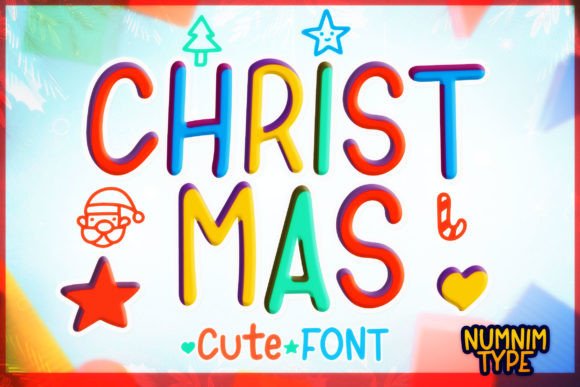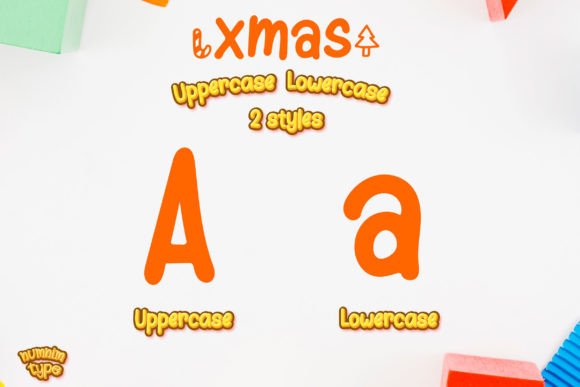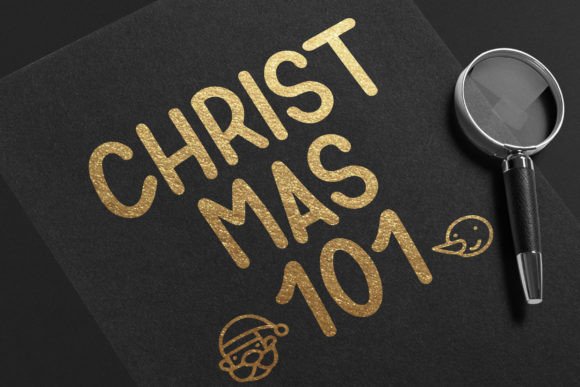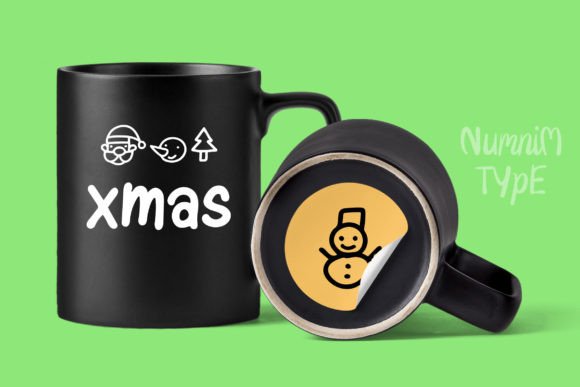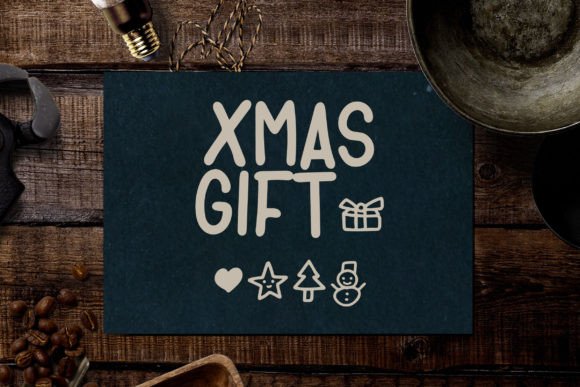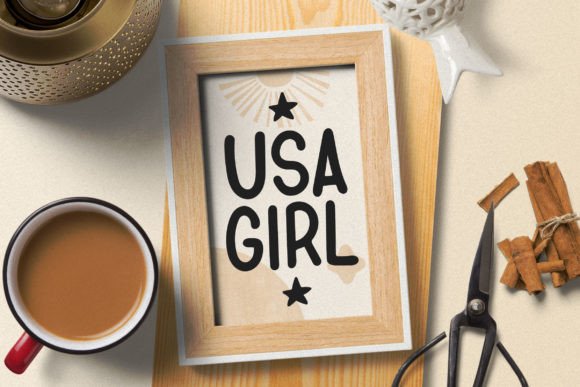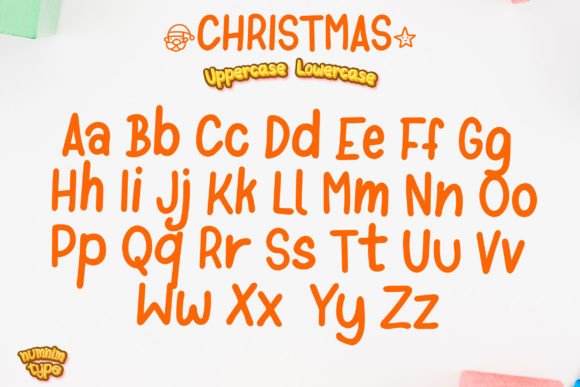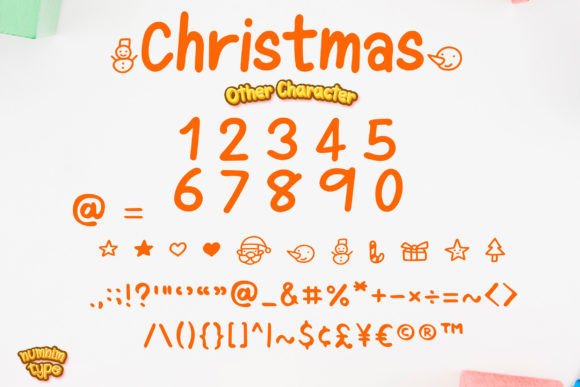
Christmas Font
“Christmas” is a cute and uniquely crafted handwritten font that captures the festive and playful spirit of the holiday season. This font’s fun and playful characters make it a perfect choice for a wide range of Christmas-themed projects, including stickers, mugs, t-shirts, ornaments, Christmas event cards, and more. Additionally, “Christmas” is PUA encoded, allowing for easy access to all its glyphs and swashes.
The key characteristics of “Christmas” are its cuteness and festive charm. Its handwritten style evokes a sense of joy and celebration, making it an excellent choice for projects that aim to spread holiday cheer and create a warm and inviting atmosphere.
Visualize using “Christmas” to design adorable holiday-themed stickers that add a touch of whimsy to your decorations. Picture incorporating this font into festive mugs and t-shirts to spread the holiday spirit wherever you go. “Christmas” can also enhance your Christmas event cards, making them even more delightful and memorable.
In summary, “Christmas” is more than just a font; it’s a design resource that brings cuteness and festive charm to your holiday-themed creative work. Its handwritten style makes it versatile for various design applications where a playful and joyful vibe is desired. Embrace “Christmas” as a font that enhances your Christmas projects and adds a sense of holiday cheer, making them more delightful and heartwarming for the season.